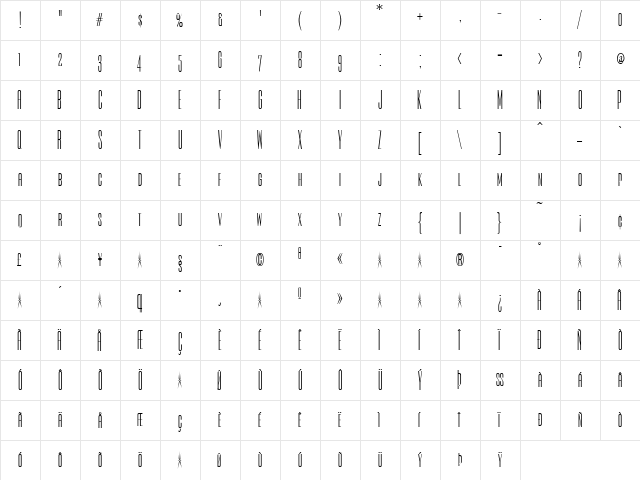
Empire Regular Font Preview
Empire Regular
Empire Regular Font Details
Design Context for Empire Typeface
Empire is a composed and adaptable typeface that performs quietly and consistently across a wide range of design contexts.
Pro Tip: Use Empire in both headline and body roles to test its range before committing to a single application.